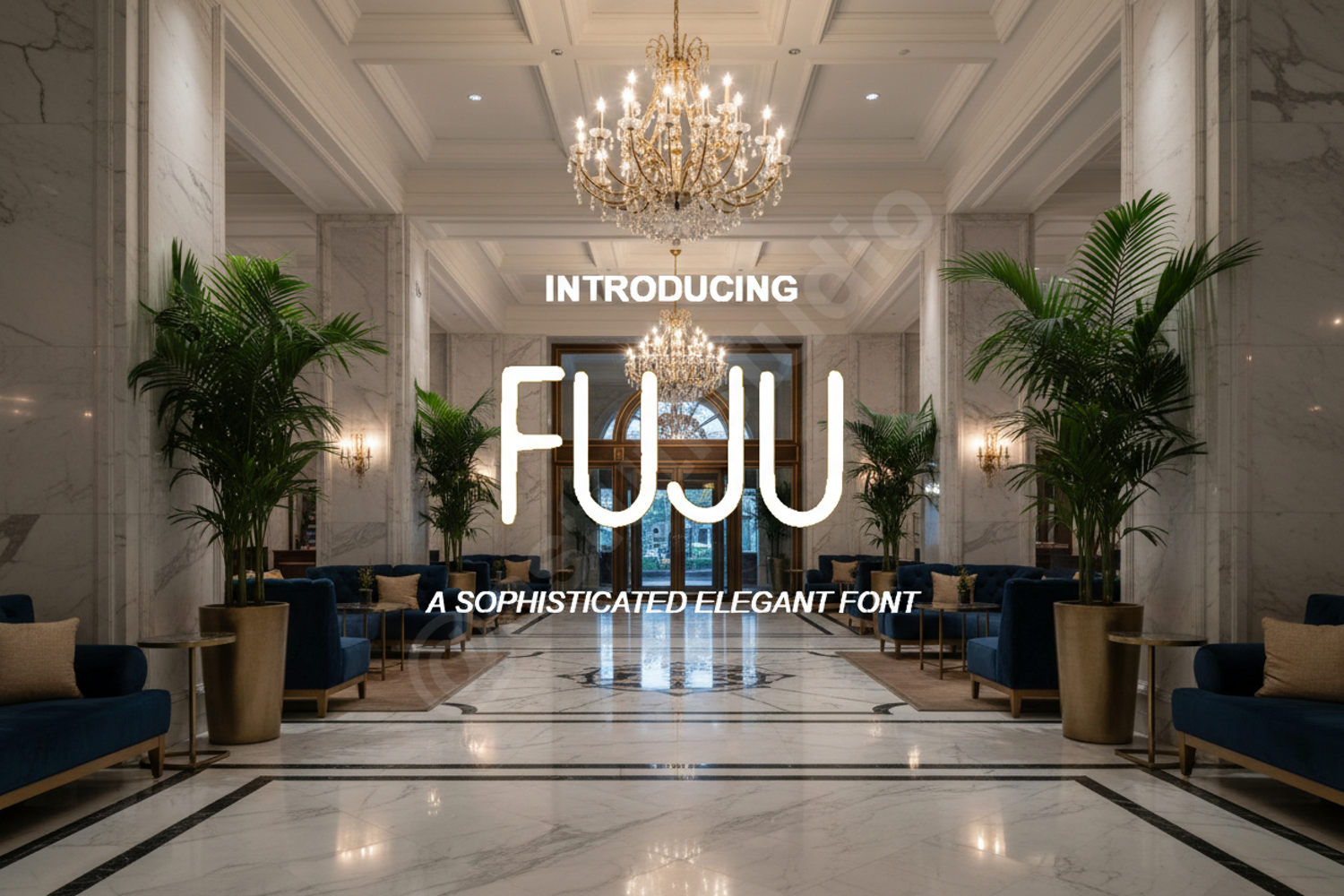
Fuju - Modern Minimalist Display Typeface
Fuju
Fuju is a premium display font meticulously crafted for designers who value a clean and modern aesthetic. Combining sharp geometric precision with subtle, elegant curves, Fuju offers a sophisticated look that instantly elevates any project. Whether you are building a brand from scratch or looking for the perfect headline font, Fuju provides the high-end quality and versatility required for professional results.
- High-End Branding and Identity: Create memorable logos and brand marks with a contemporary edge.
- Editorial Design: Perfect for magazine headers, titles, and striking layout elements.
- Social Media Content: Enhance your aesthetic with clean, readable text for Instagram, Pinterest, and more.
- Product Packaging: Deliver a premium feel to your labels and box designs.
- Wedding Stationery: Ideal for modern wedding invitations and minimalist event signage.